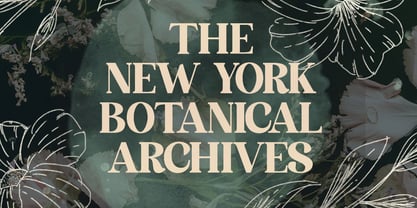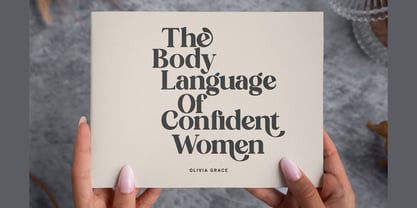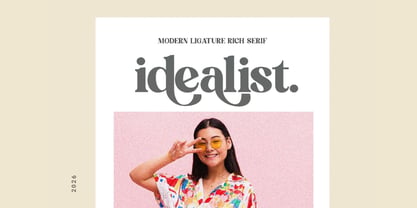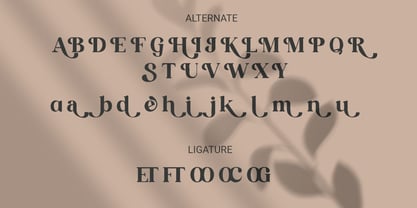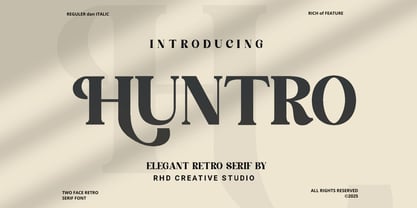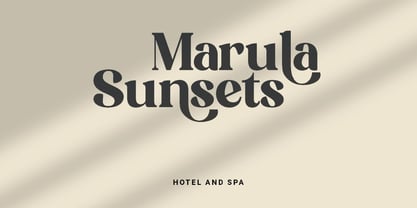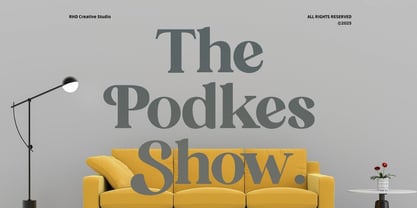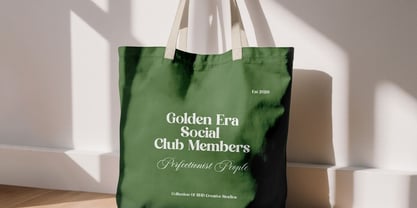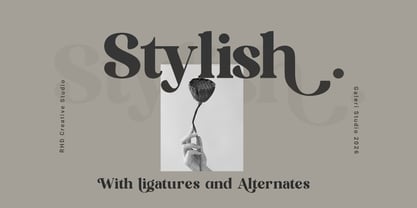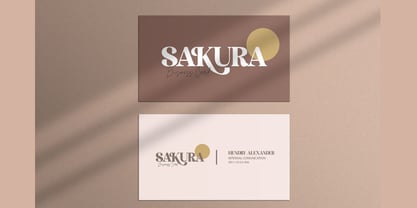
Huntro
by RHD Creative
The Huntro Font Family was designed by and published by RHD Creative. Huntro contains 2 styles and family package options. More about this family
Hello everyone, I would like to introduce HUNTRO - Elegant Retro Serif Font. HUNTRO - Elegant Retro Serif Font with Handmade character. HUNTRO - Elegant Retro Serif Font, Modern font to make your design project stand out! HUNTRO a perfectly choice for any creative endeavor, creating, modern, chic, lifestyle design such as logotype, title, cover, branding, invitations, wedding designs, display and magazine, social media posts, advertisements, printed quotes, product packaging, corporate brand, product designs, labels, photography, watermarks, special events and any other project with modern touch. Thank you for your purchase! Hope you enjoy with our font!